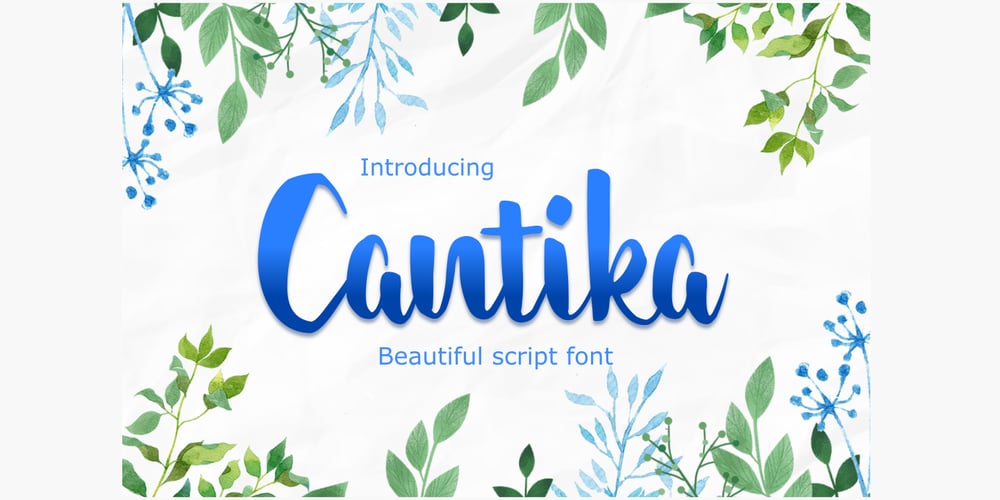
Cantika
Cantika font
Cantika Font Family was designed by Setiadi Rahagita and published by RahagitaType. Cantika contains 1 styles and family package options. Cantika is a beautiful font suitable for wedding invitations or souvenirs. Cantika is also suitable to use for other purposes that require an attractive appearance.